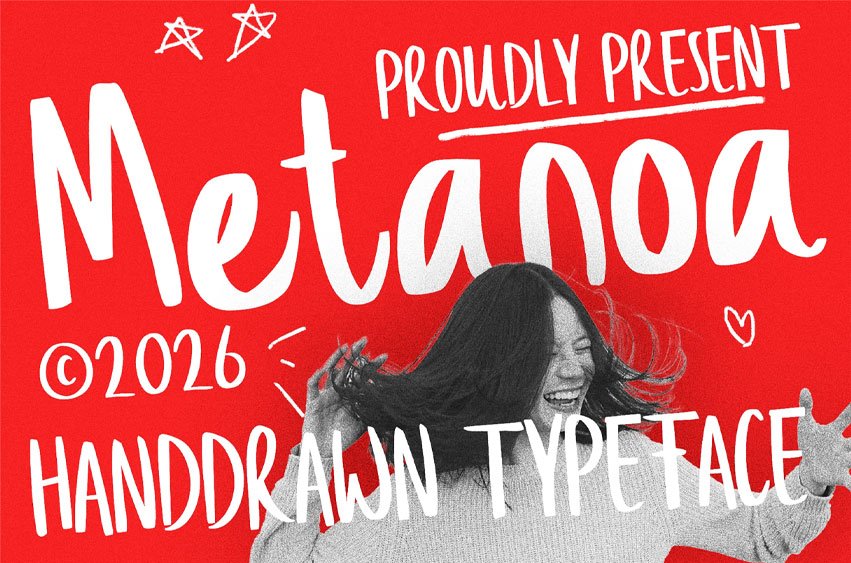
Metanoa Font Give your designs an authentic “human touch” with Metanoa. This font is a tall, slender, and playfully irregular handwritten typeface designed to bring warmth and personality to any creative project.
Metanoa captures the charm of spontaneous pen strokes, making it the perfect antidote to rigid, clinical digital fonts. Whether you are aiming for a whimsical look or a professional-yet-approachable vibe, Metanoa adapts effortlessly to your creative vision.
Features & Character:
- Organic Irregularity
- Ultra-Chunky Presence
- Versatile Personality
- Handmade Soul